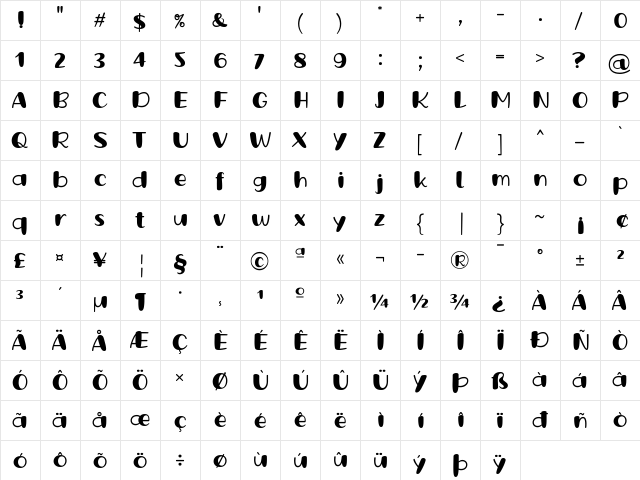
Grande October Three Regular
Design Context for Grande October Three Typeface
Grande October Three is a composed and adaptable typeface that performs quietly and consistently across a wide range of design contexts.